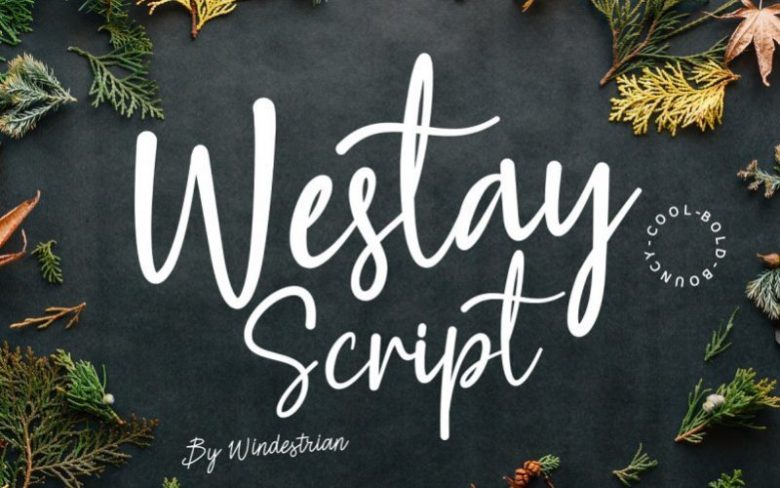
Westay Bold Script Font
Westay Script is unique, bold, simple, bouncy and cool.
It can be incorporated into many designs including quotes text, wedding invitations, posters and you can create custom cards to give to your friends and family.
Westay Script is a simple script typeface which is simple and funny.
Good for Logos, Titles, Tees Design or Indie flyer and Poster.